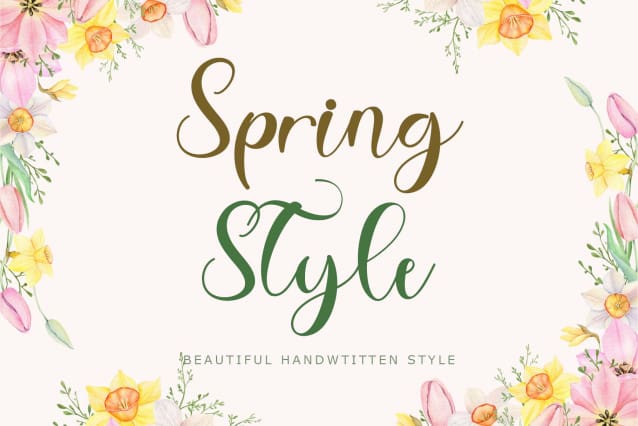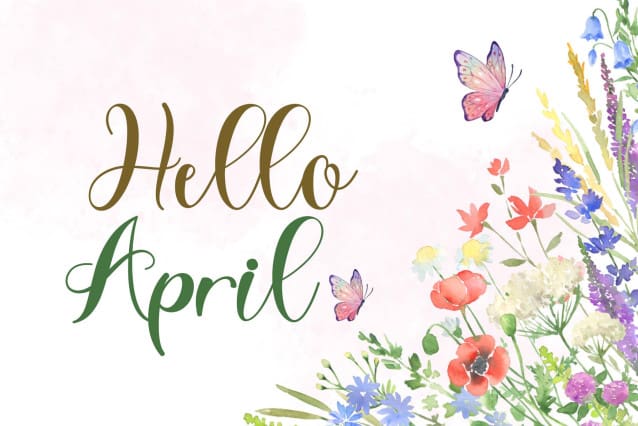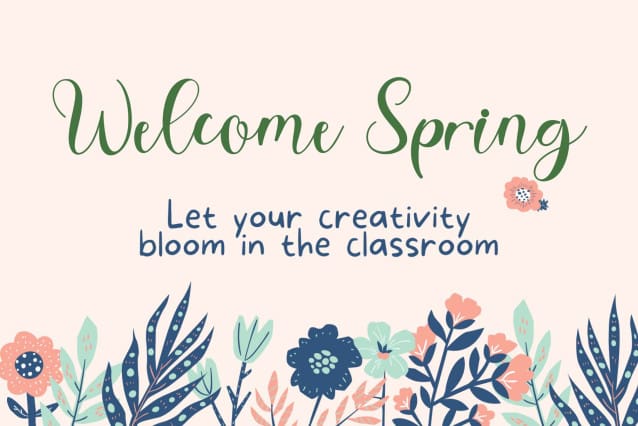
Spring Style Font
Spring Style Font is a beautiful handwritten font. This font is equipped with uppercase, lowercase, ligatures, numerals, punctuations, swash and multilingual support. Very suitable for spring, summer, banners, posters, stickers, invitations, weddings, engagements and others.